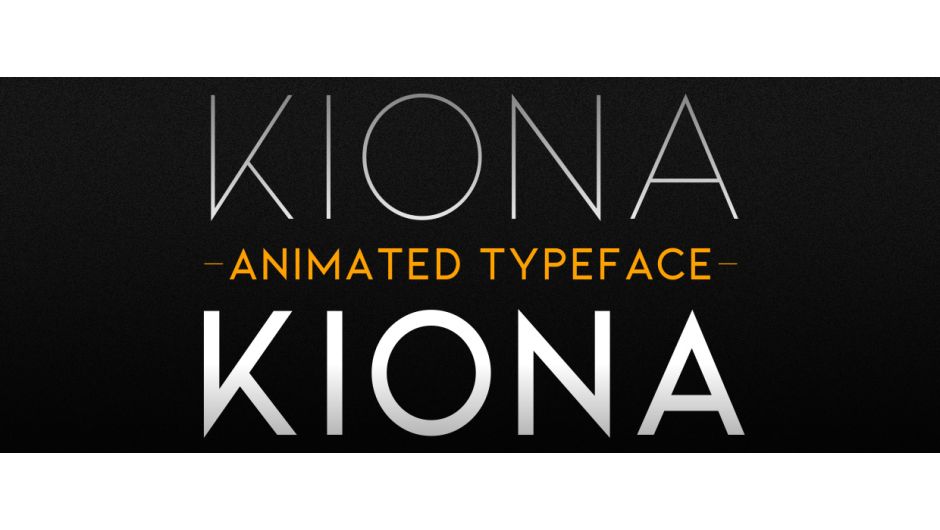
Kiona Animated Typeface
A modern, geometric and minimal sans-serif animated typeface that comes in a light and semi-bold version. Included are all uppercase letters, numbers, and 19 common symbols which makes a total of 110 glyph characters.
• Two font weights: light and semi-bold
• 110 unique font characters: All uppercase letters, numbers and 19 common symbols for each font weight
• Easy to use and customize including: enable/disable accent lines, accent line width, and both colors
Kiona is a modern and minimal sans-serif uppercase typeface which includes a light and semi-bold version. Each of the font weights consists of 55 unique characters including all letters, numbers, and 19 common symbols making a total of 110 glyph characters. This uses a smaller amount of After Effects expressions to keep the font lightweight and fast to render. You also have the ability to customize both main and accent color as well as the accent line width to meet your needs. No 3rd party plugins are required to run this font and the project is compatible with the script Characteristic.